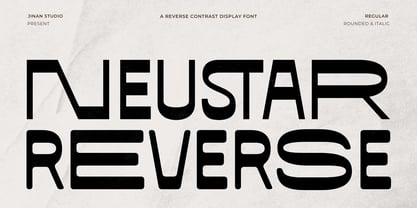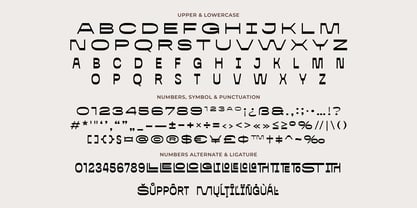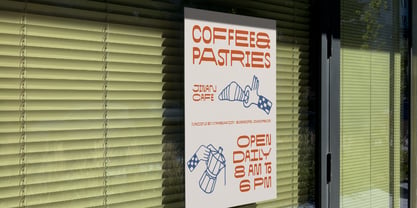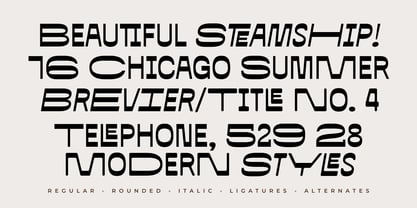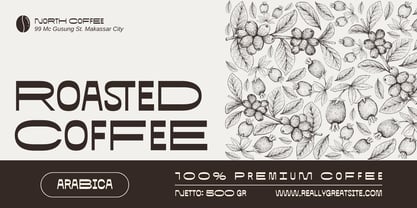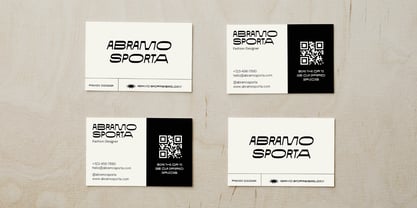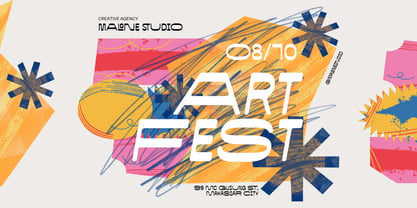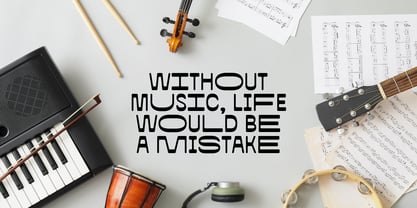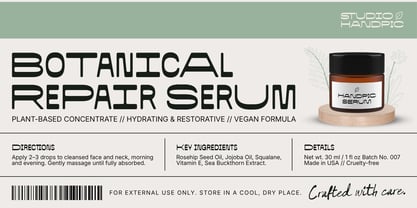
Neustar Reverse
by Jinan Studio
The Neustar Reverse Font Family was designed by Andi Syahdang and published by Jinan Studio. Neustar Reverse contains 4 styles and family package options. More about this family
Neustar Reverse is a modern reverse contrast display font that combines bold horizontal strokes with refined letterforms to create a distinctive, sophisticated, and memorable visual identity. Available in Regular, Rounded, and Italic styles, it offers the perfect balance between contemporary elegance and expressive personality, making it an excellent choice for eye-catching typography.
Designed for designers who want to make a bold statement, Neustar Reverse is perfect for logos, luxury branding, editorial headlines, fashion campaigns, packaging, posters, architecture, technology, and premium marketing materials. Its unique reverse contrast style delivers a fresh and modern aesthetic, helping every project stand out with confidence, originality, and timeless appeal.
Features
• A set of uppercase and lowercase glyphs
• Number, symbol, and punctuation
• Multilingual Support
• Alternate & Ligatures
• Regular, Rounded, Italic
Designers: Andi Syahdang
Foundry: Jinan Studio
Neustar Reverse